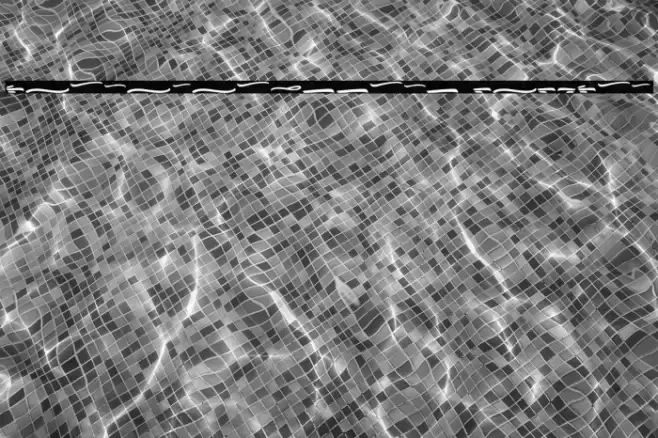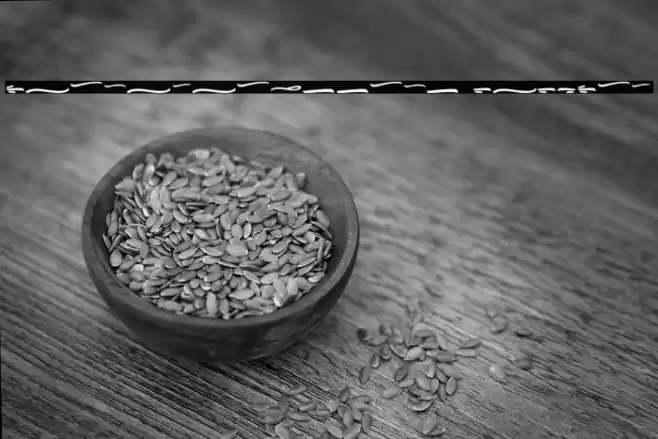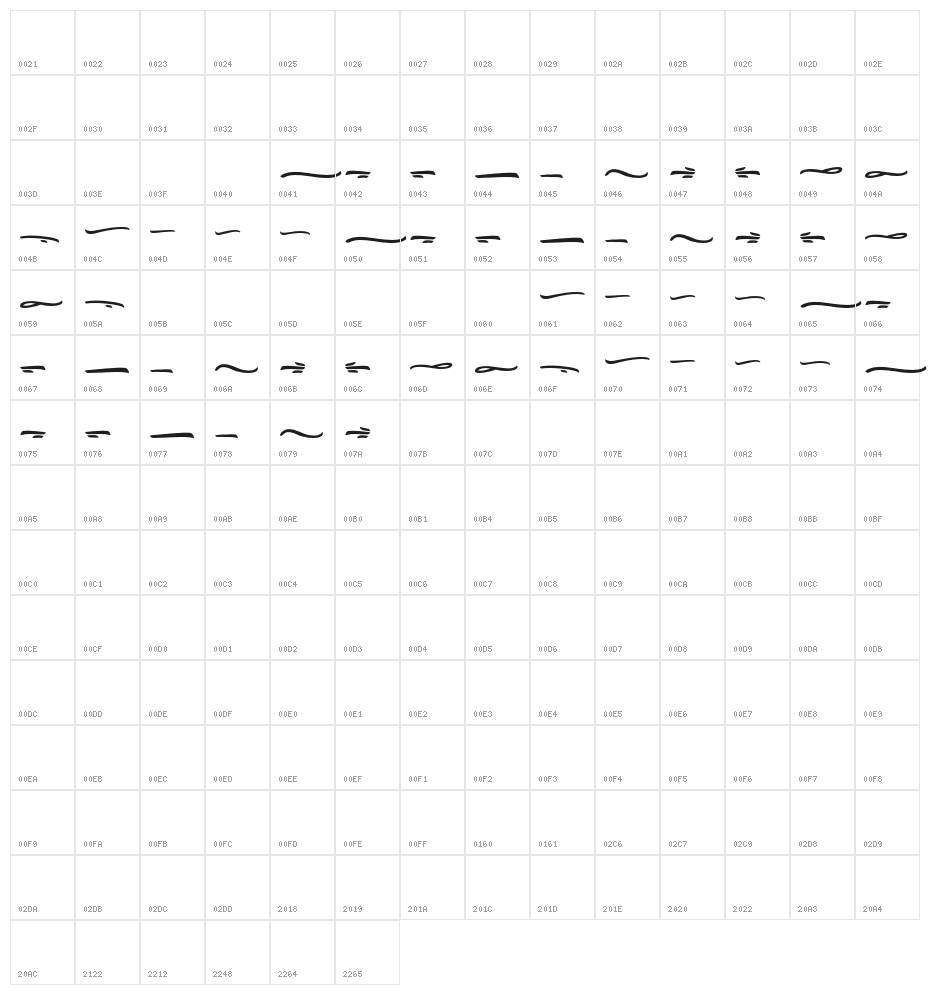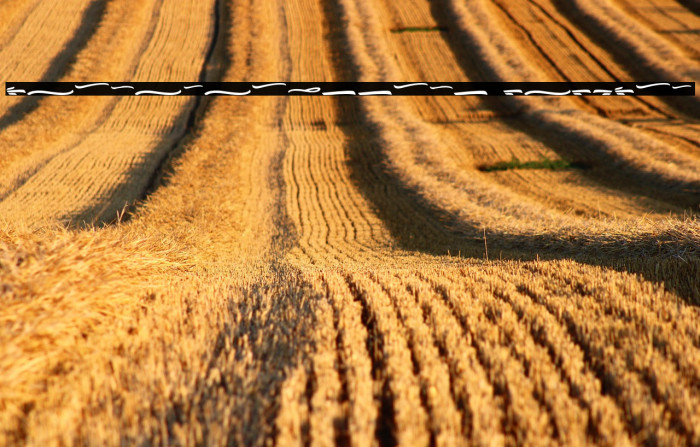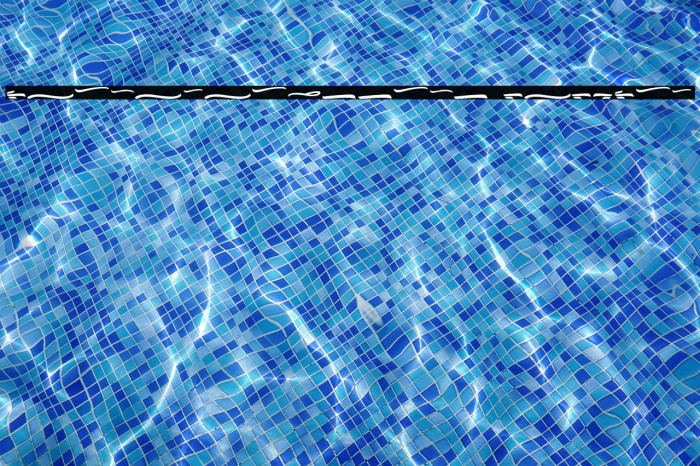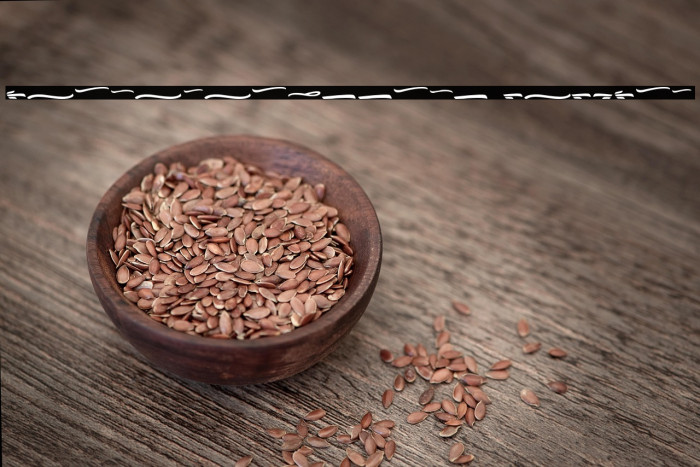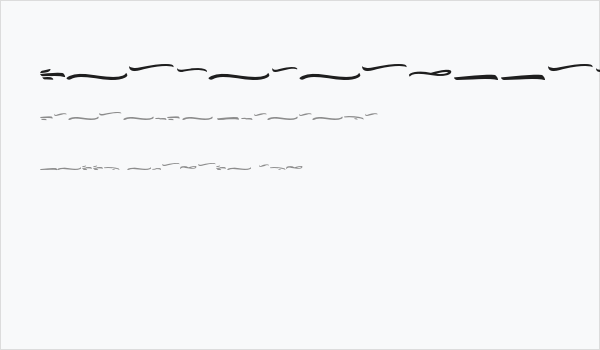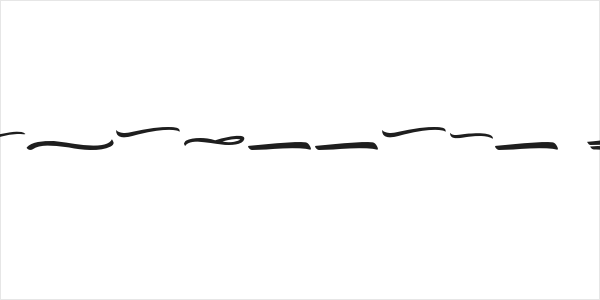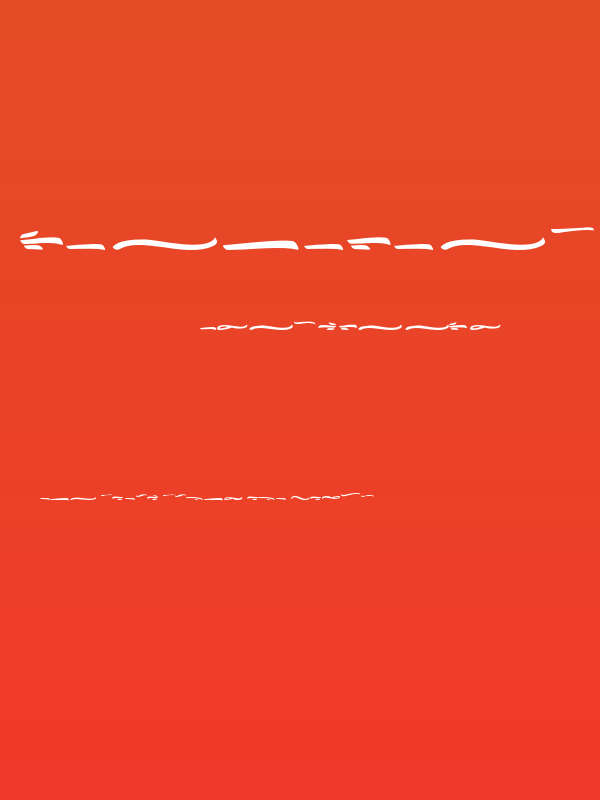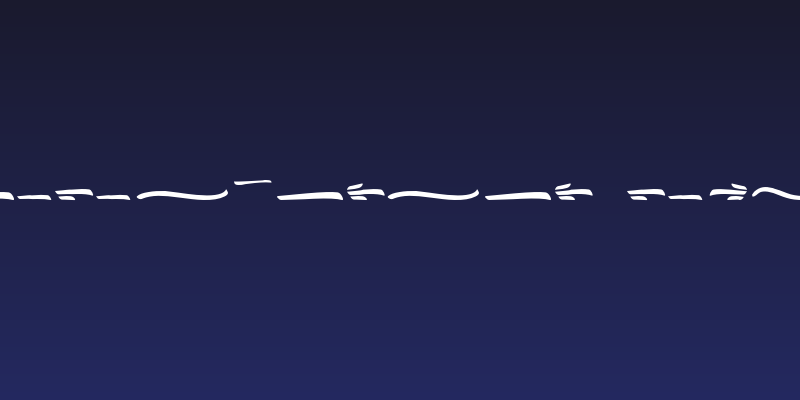
WeastreamSwash-Regular Font
WeastreamSwash-Regular Description
This font features a highly decorative and artistic style, characterized by elegant swashes and flourishes that extend from each character. The design is reminiscent of calligraphic handwriting, with a whimsical and flowing appearance. The strokes are smooth and fluid, creating a sense of movement and grace. This font is ideal for projects that require a touch of sophistication and creativity, such as invitations, greeting cards, or artistic branding. The unique style of each letterform makes it stand out, adding a personal and handcrafted feel to any design.
A decorative font with elegant swashes and calligraphic flair from Regular fonts.
- Proposed Projects: Ideal for invitations, greeting cards, artistic branding, and decorative headings.
- Use Case: Headlines, Artistic designs, Invitations